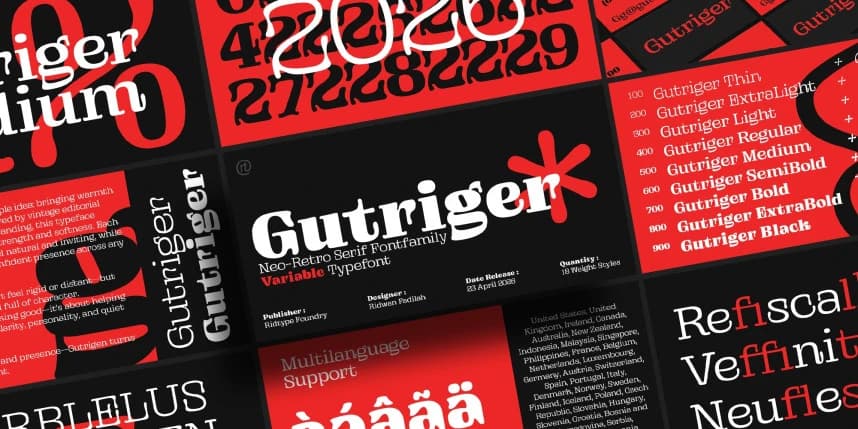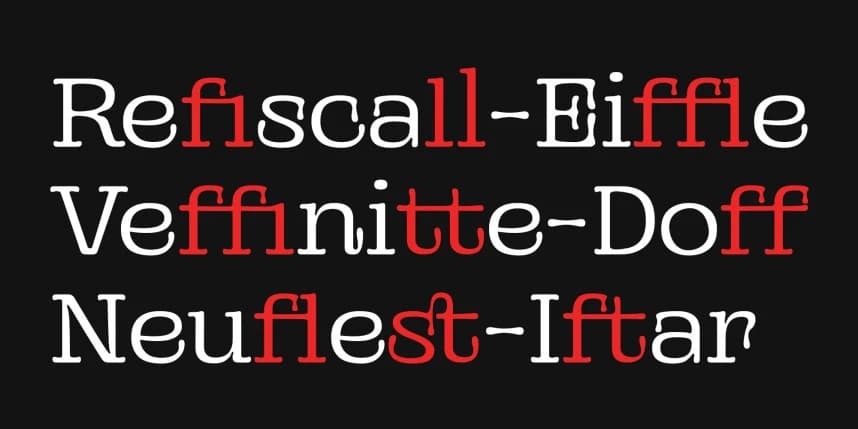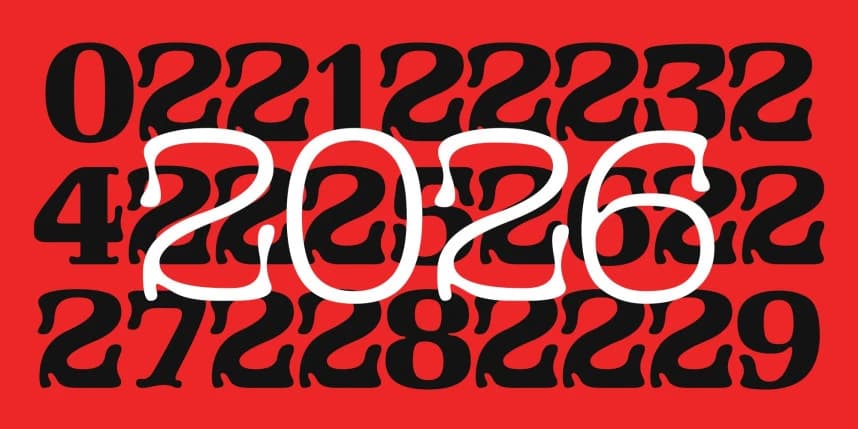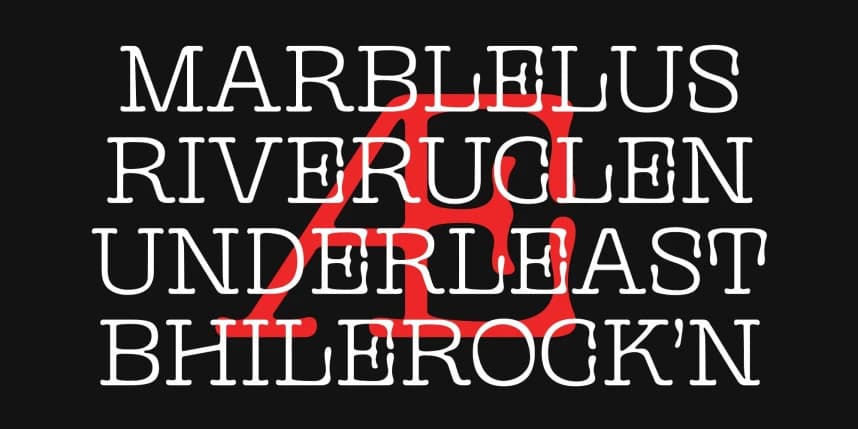
Gutriger Font
Gutriger Font was created from a simple idea: bringing warmth back into bold typography. Inspired by vintage editorial styles yet refined for modern branding, this typeface explores the balance between strength and softness.